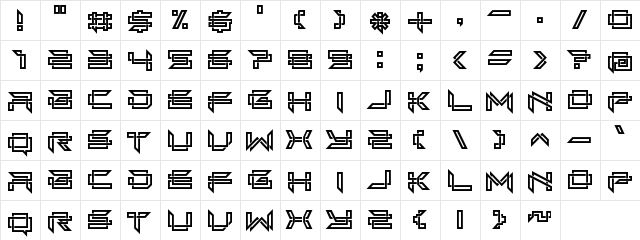
Next In Folded Line Regular
Design Context for Next In Folded Line Typeface
Next In Folded Line is a composed and adaptable typeface that performs quietly and consistently across a wide range of design contexts.
Pro Tip: Use Next In Folded Line in both headline and body roles to test its range before committing to a single application.